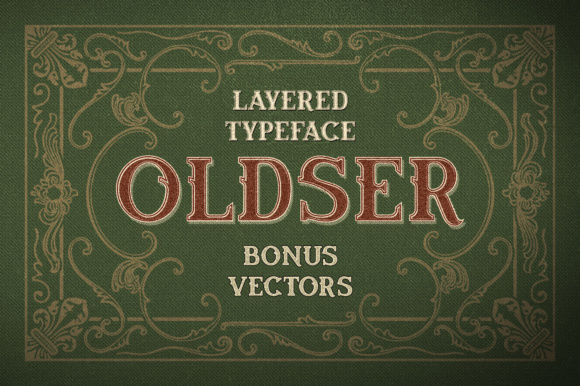
Immerse yourself in the captivating world of Oldser Font, a vintage display font that will transport you back to the golden era of design. Created by the talented UncleAvi, Oldser is a multi-layered masterpiece that offers endless possibilities for creative expression.
Unearth the beauty of Oldser, a display font that exudes boldness and elegance. Its intricate details and layered design add a touch of sophistication to any project, evoking a sense of nostalgia and charm.
With Oldser, you're not just downloading a font; you're acquiring a versatile tool that will elevate your designs to new heights. Its multi-layered structure allows for limitless combinations, empowering you to create unique and captivating visuals that leave a lasting impression.
Picture this: your posters adorned with Oldser's captivating characters, your logos exuding a timeless charm, and your quotes radiating an aura of wisdom. Envision your headers commanding attention with their bold presence, your apparel designs turning heads with their retro flair, and your packaging captivating customers with its vintage elegance.
Oldser is the key to unlocking a world of creative possibilities. Whether you're a seasoned designer or just starting your creative journey, this font will empower you to express yourself in ways you never thought possible.
Don't settle for ordinary fonts. Embrace the extraordinary with Oldser. Its versatility and timeless appeal make it the perfect choice for a wide range of projects, from personal to professional.
Join the ranks of creative visionaries who have harnessed the power of Oldser to elevate their designs. Experience the magic of this vintage display font and watch your creativity soar.